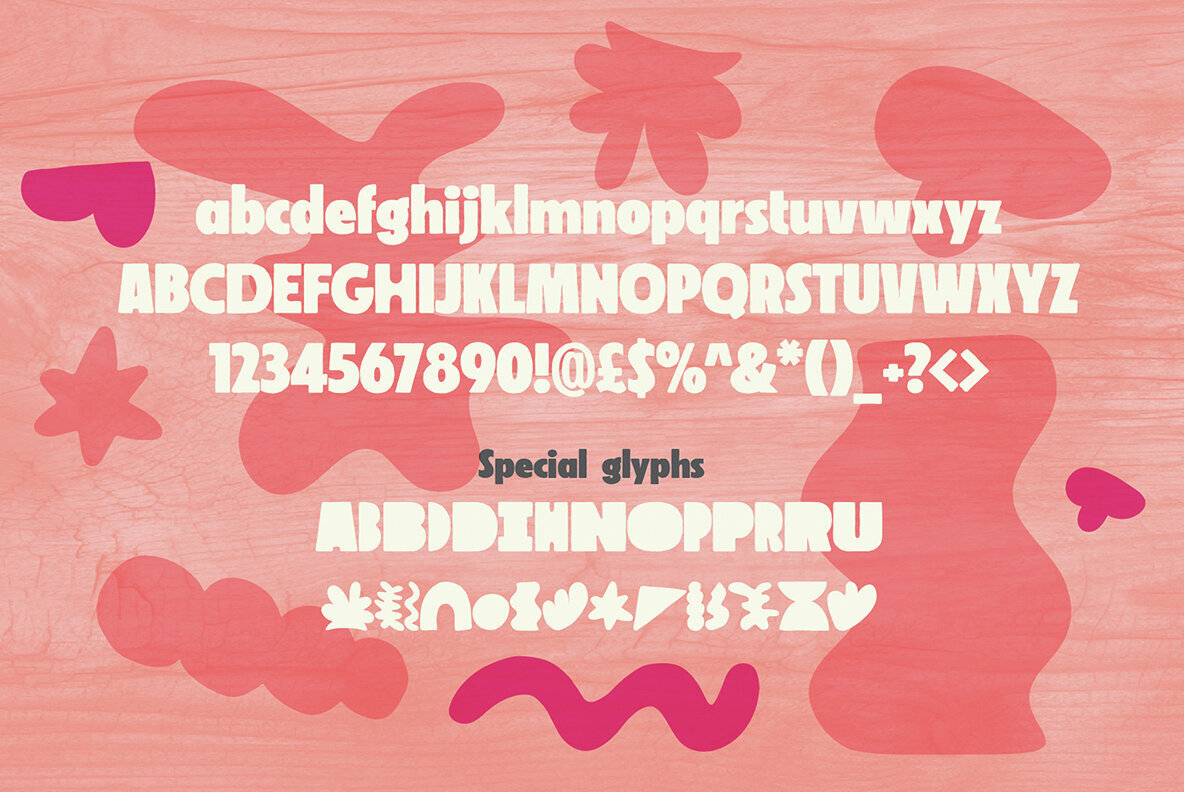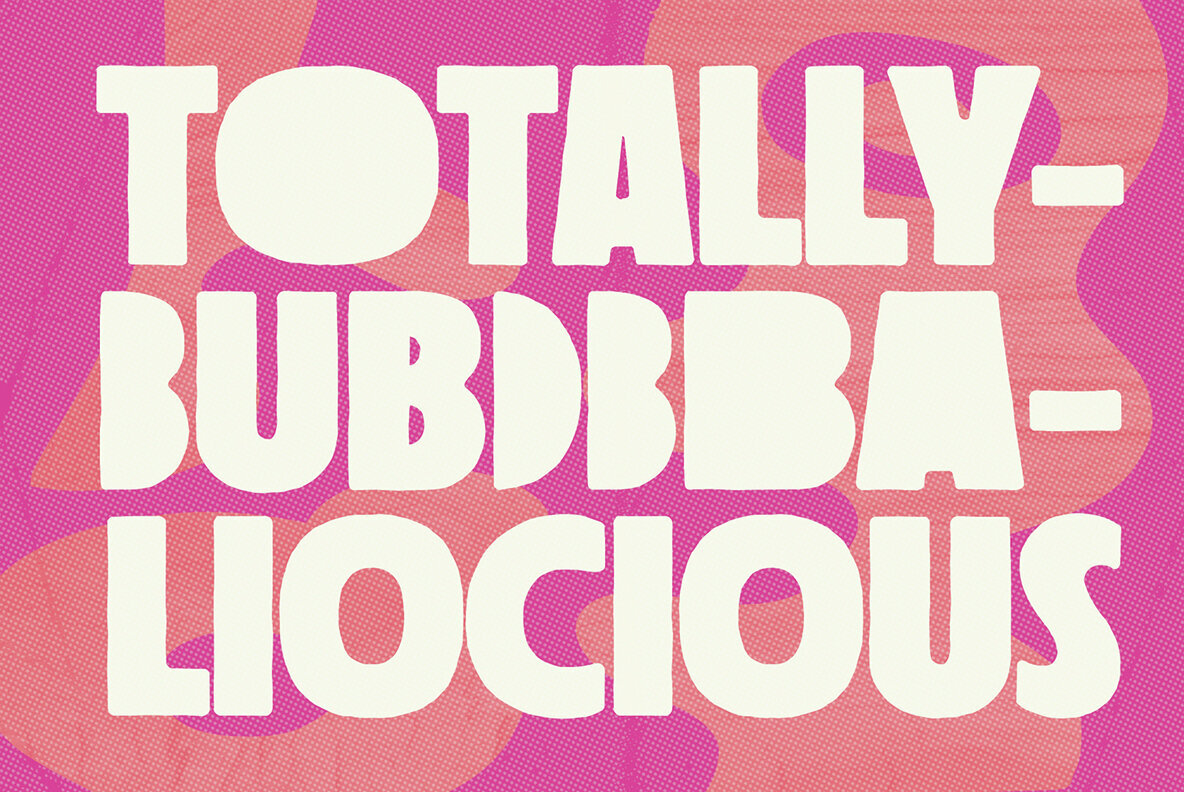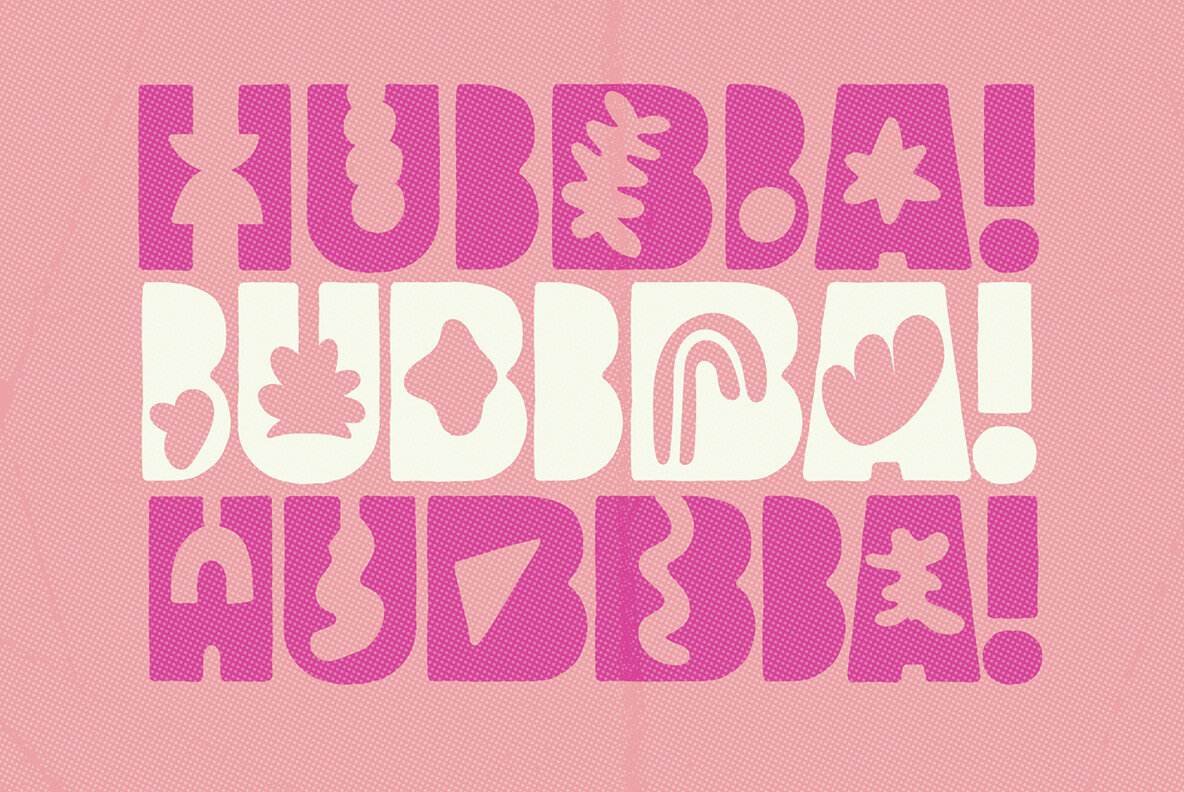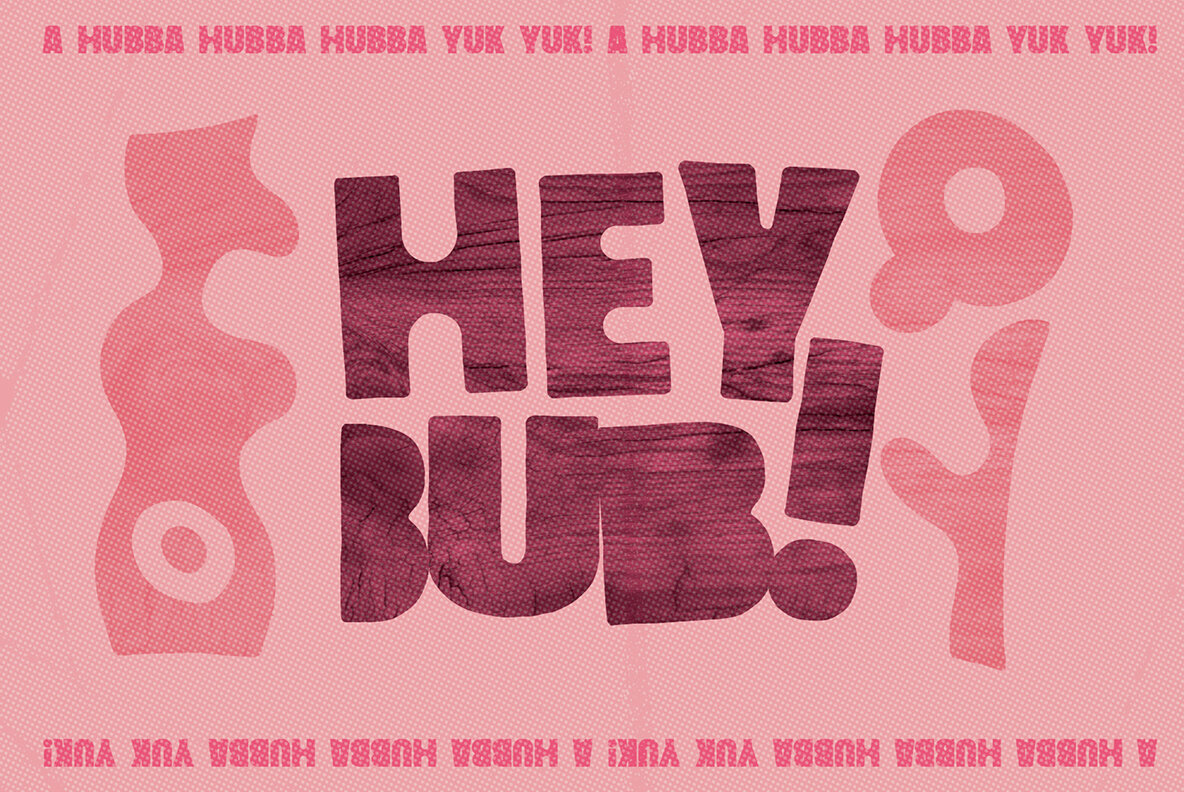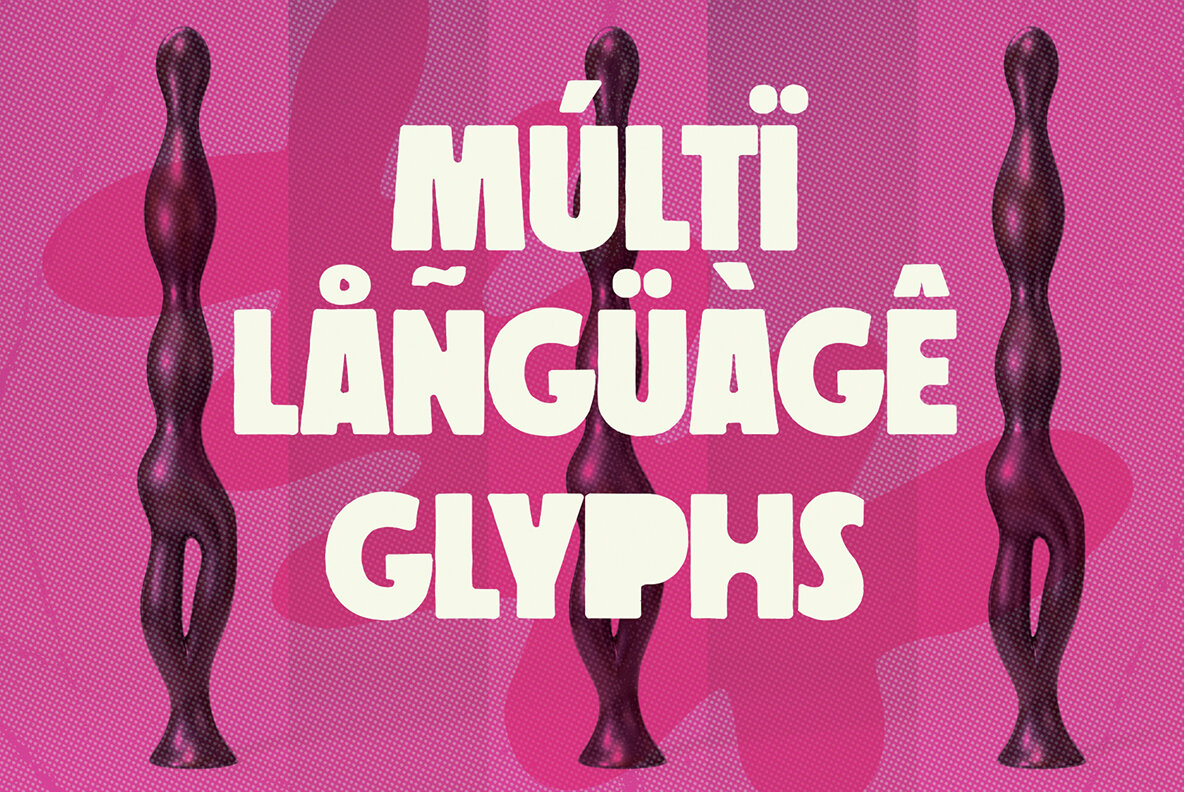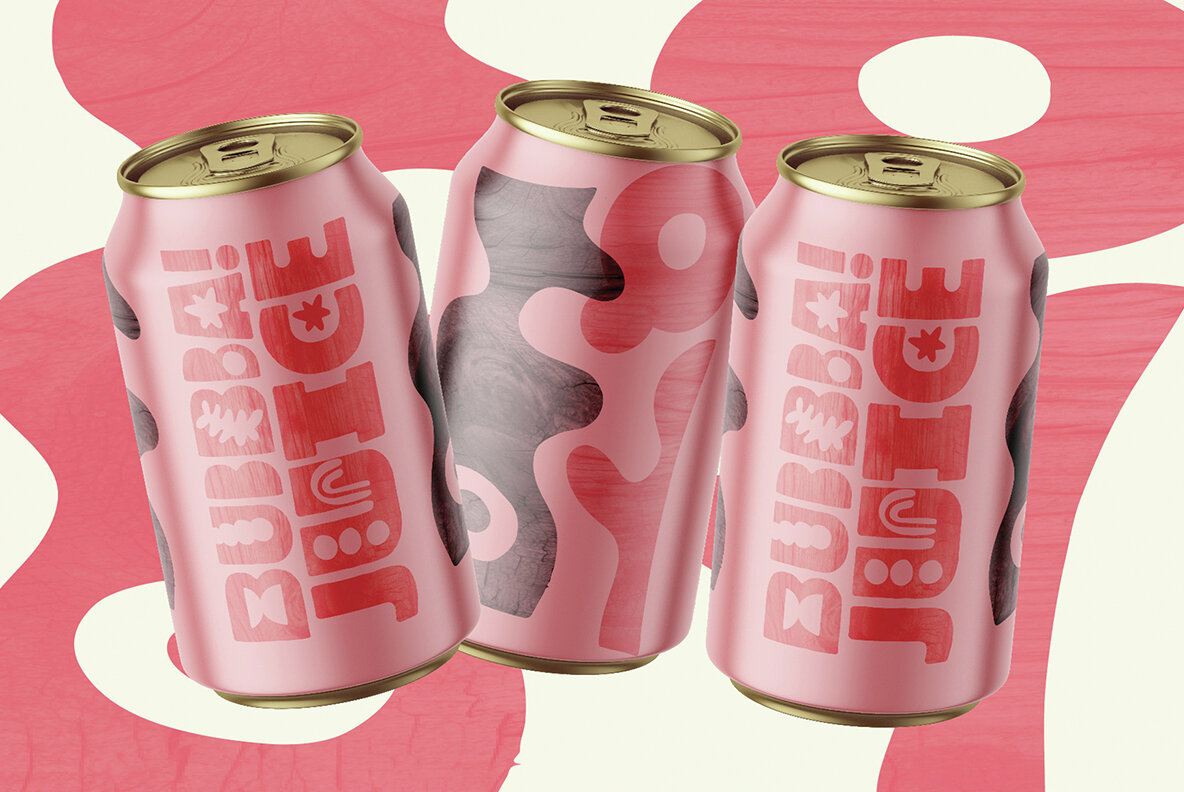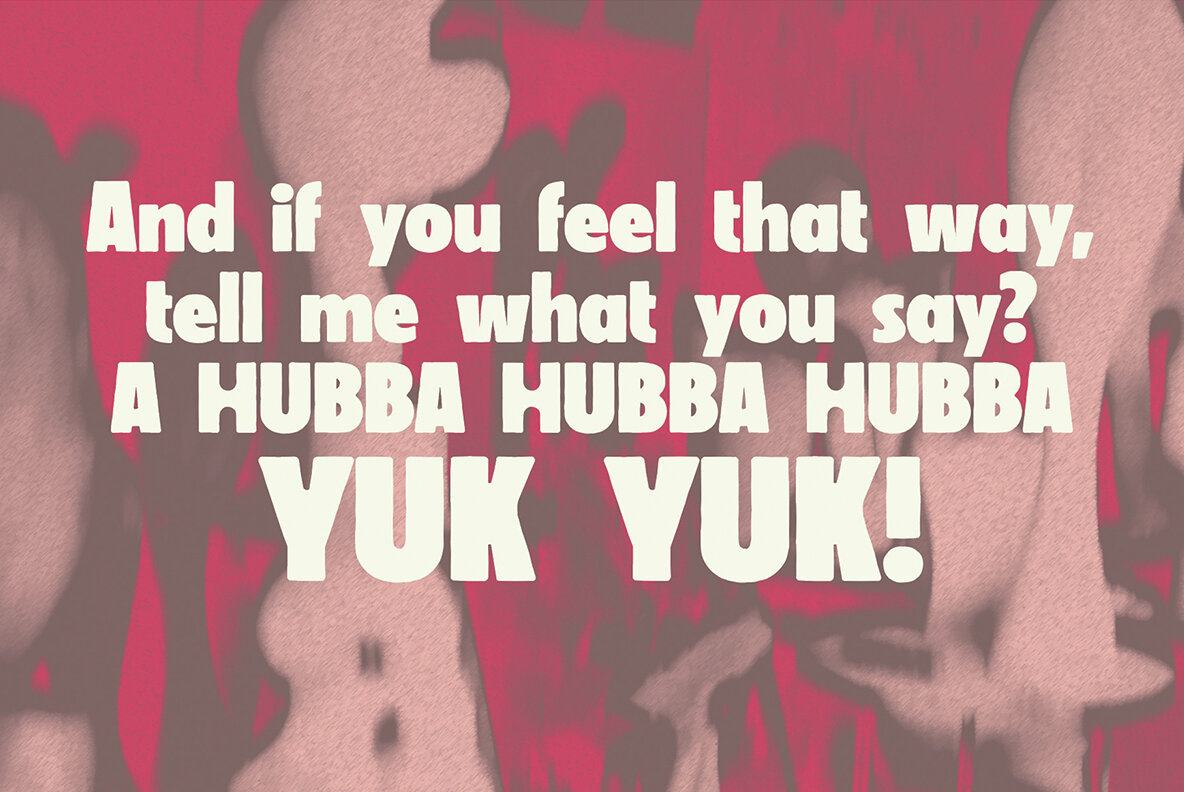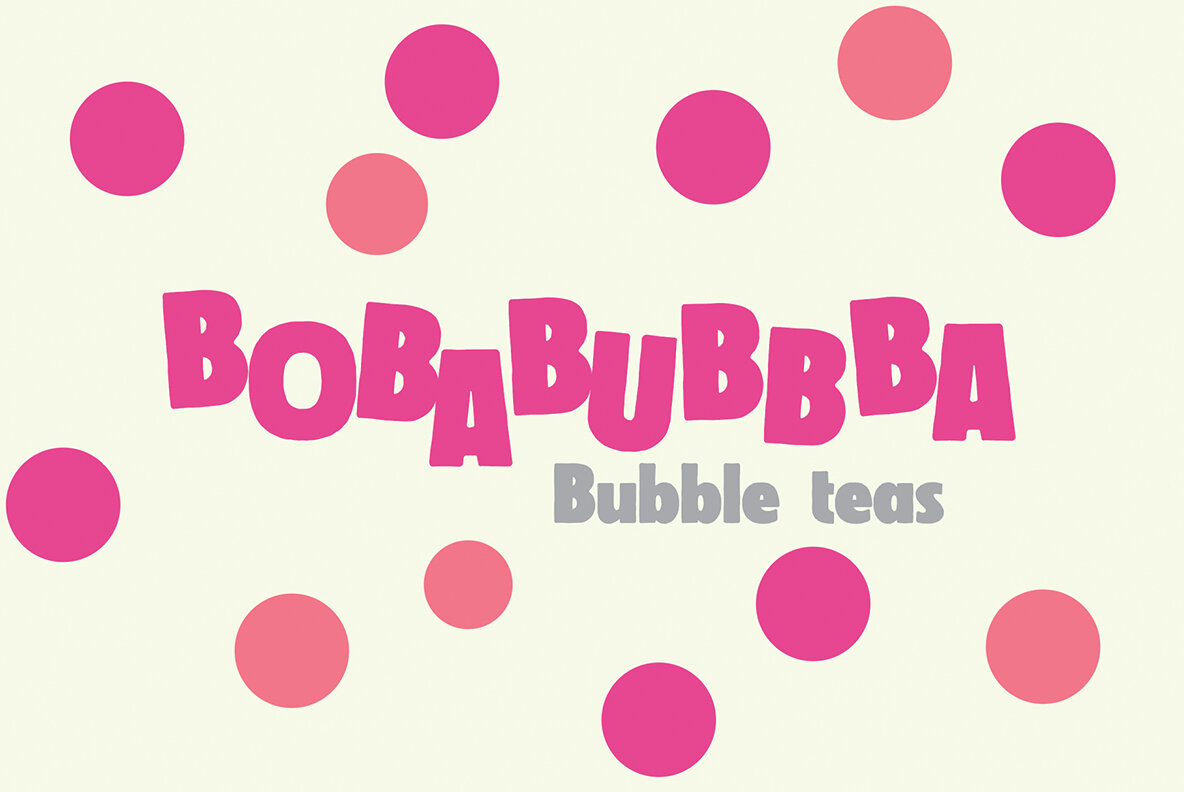
Bubbbo Font
Bubbbo is a bountitful font! Its rough and chunky style gives it charm, while the extra letter and shape glyphs it offers versatility for customisation. It seems like it would be ideal for creating eye-catching branding and signage that exudes a fun and friendly vibe. Do you have any specific projects in mind for using Bubbbo?